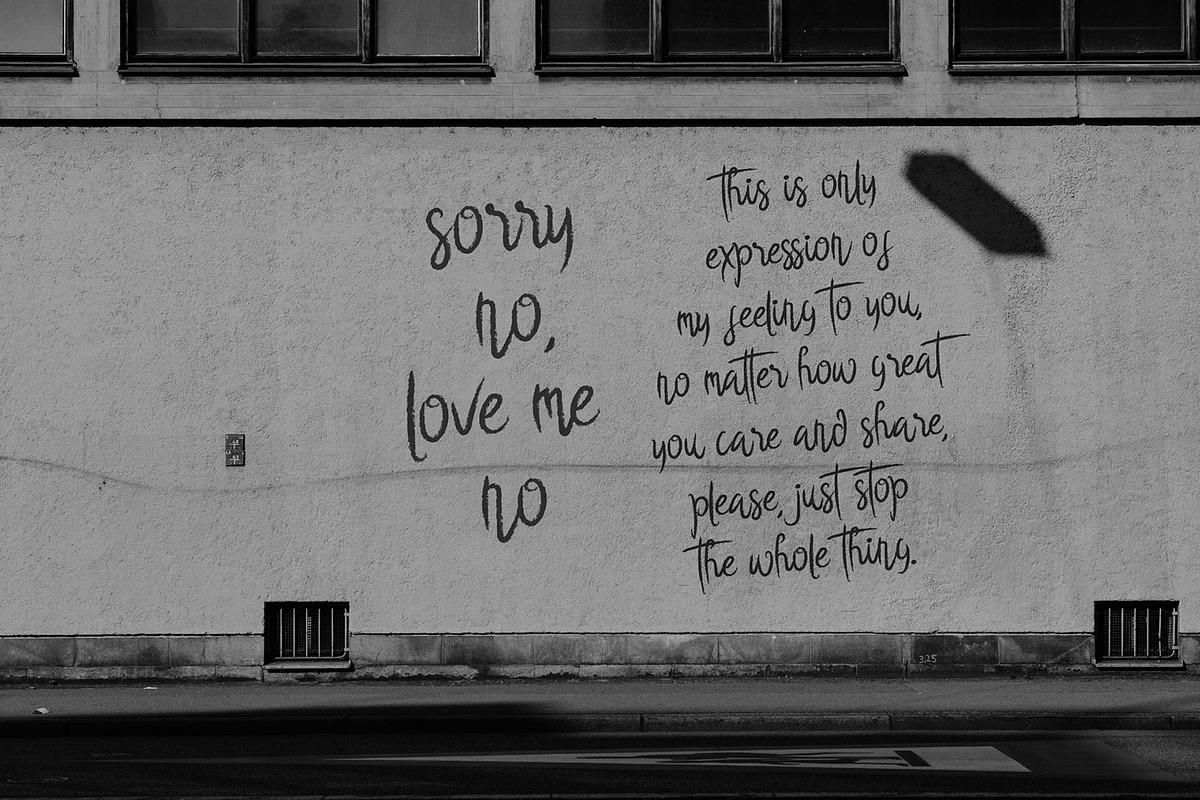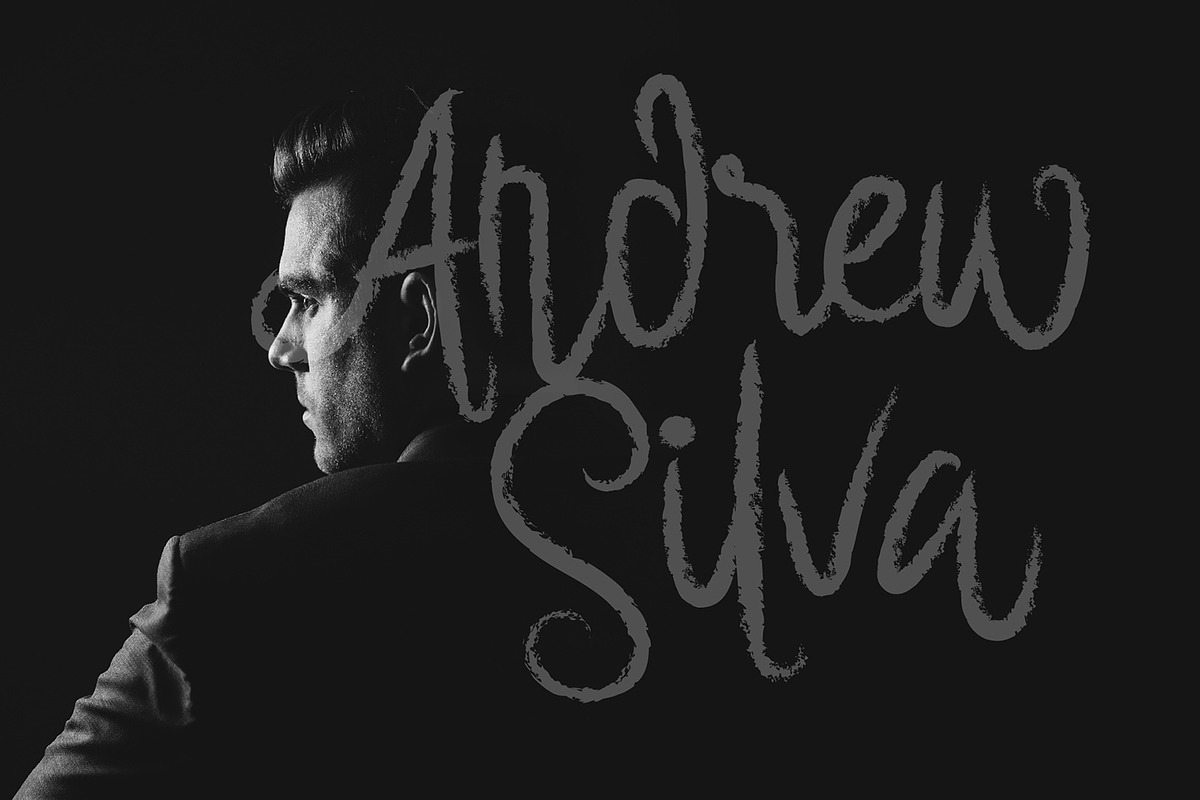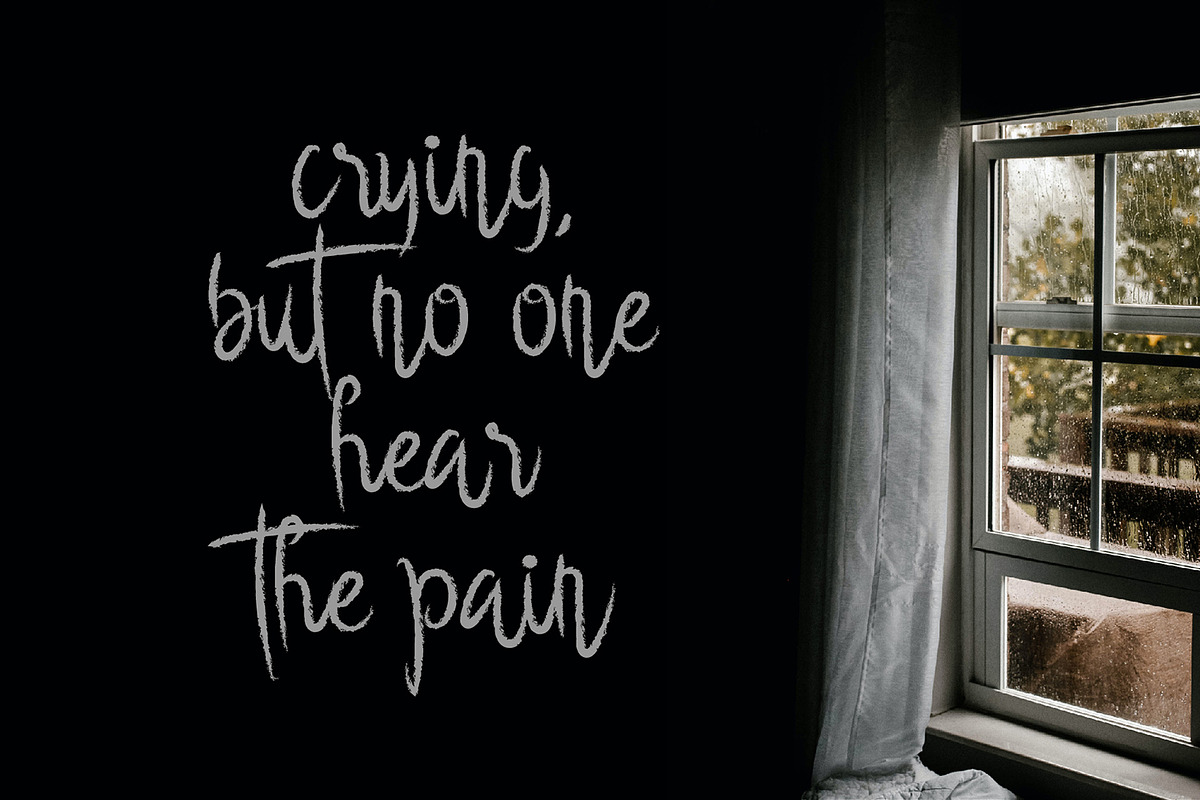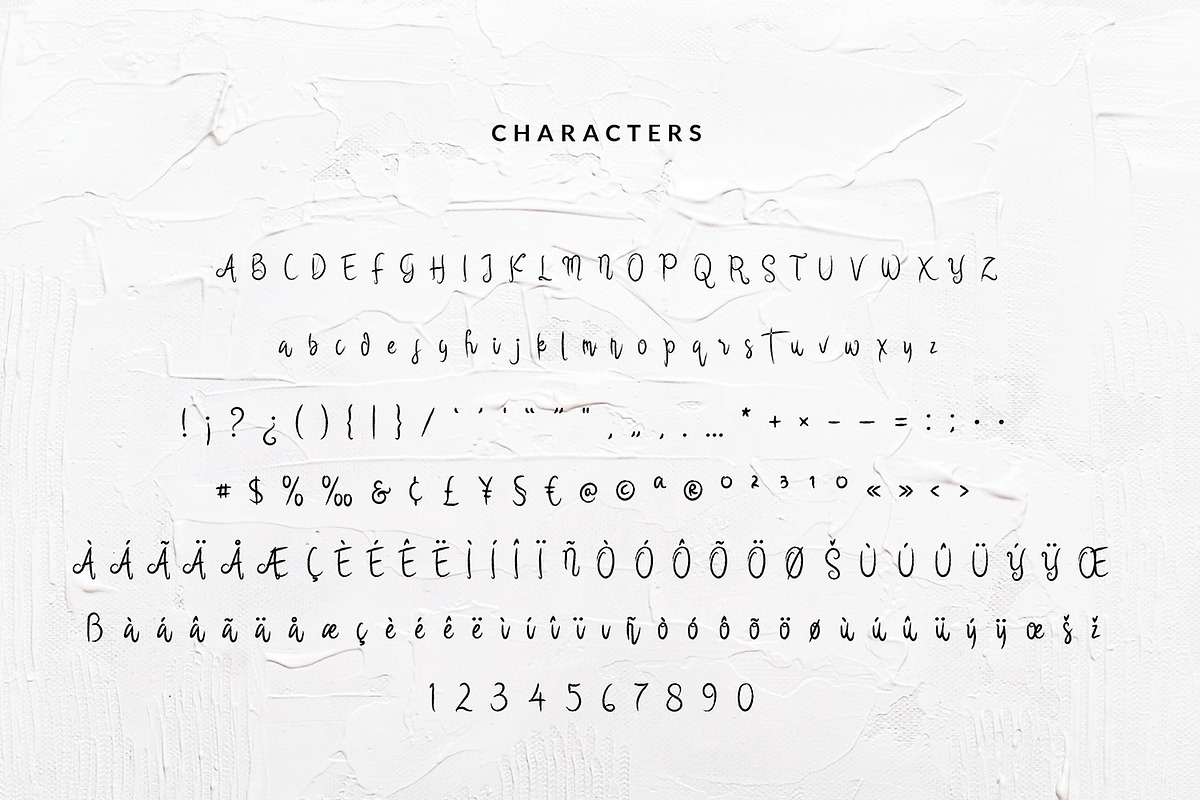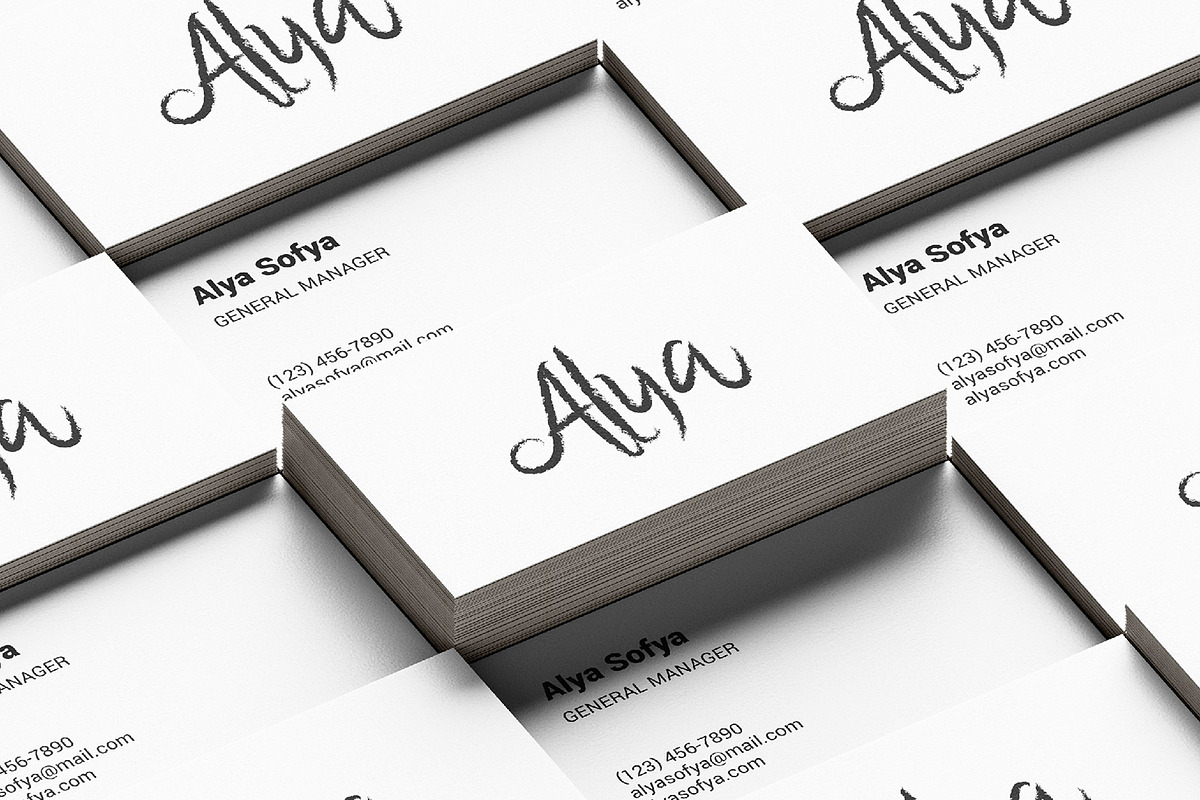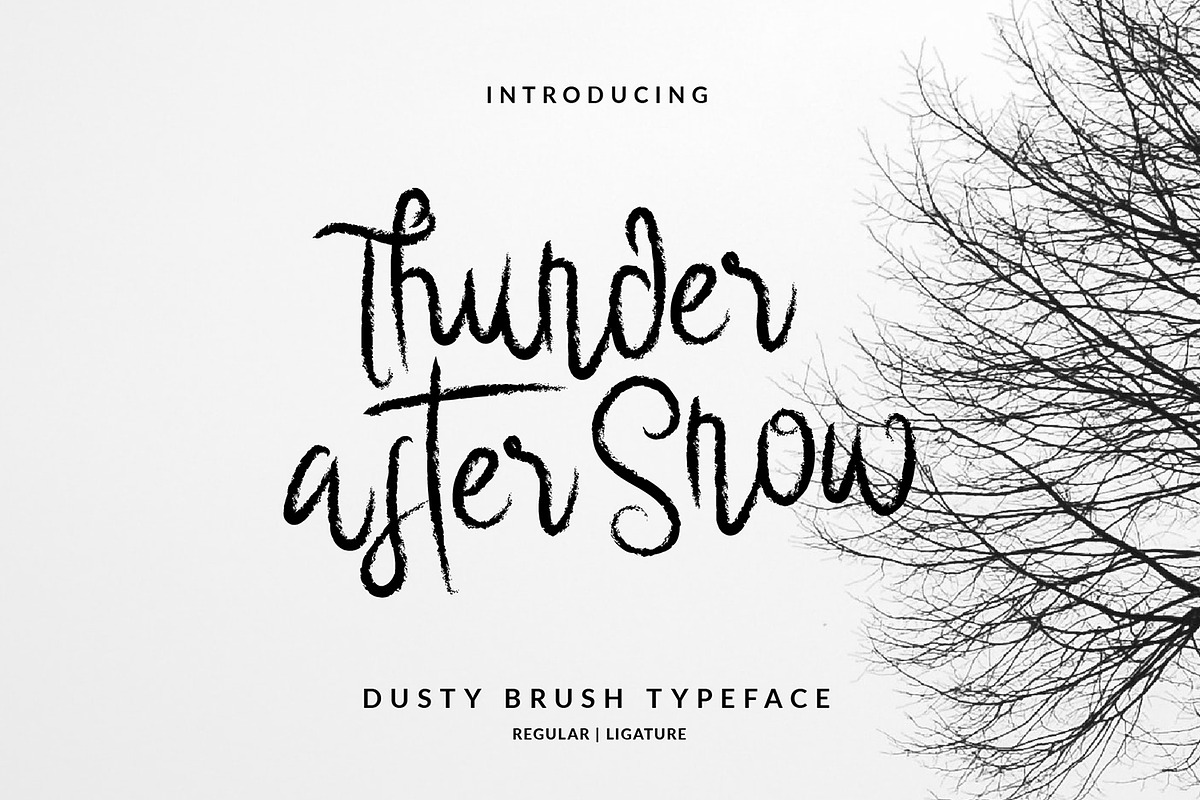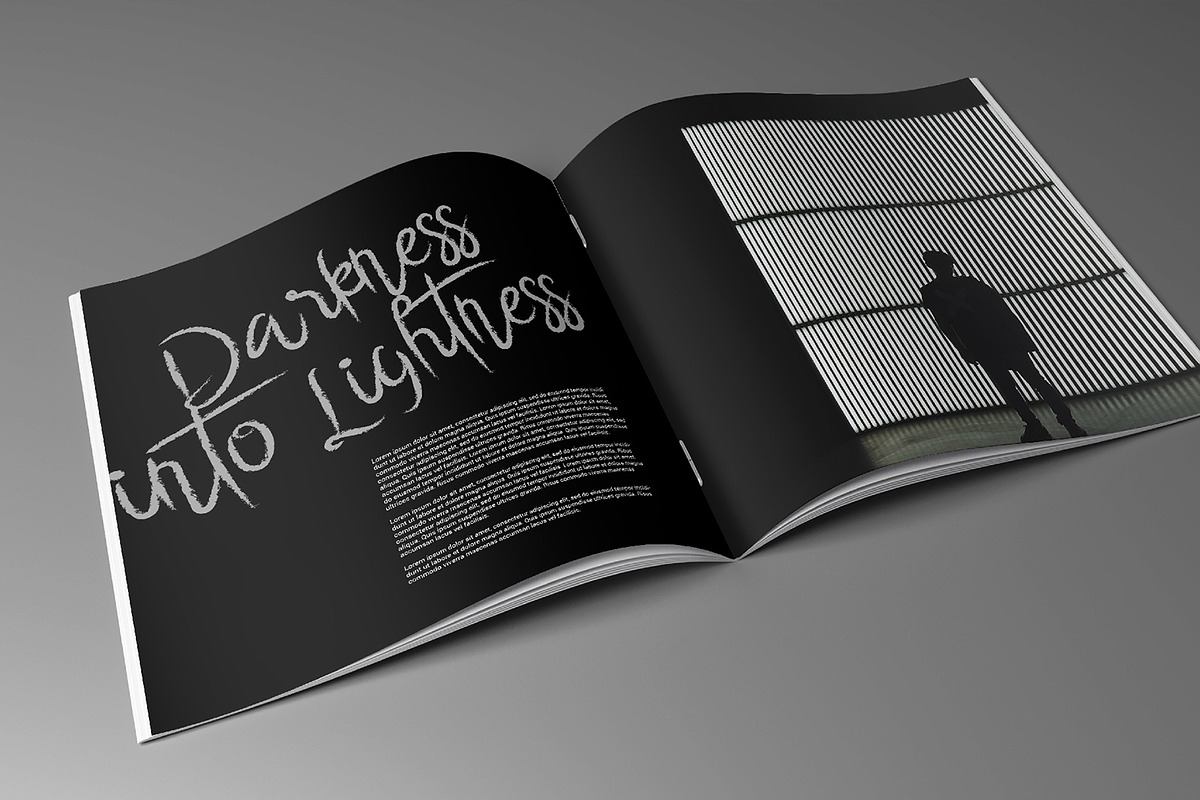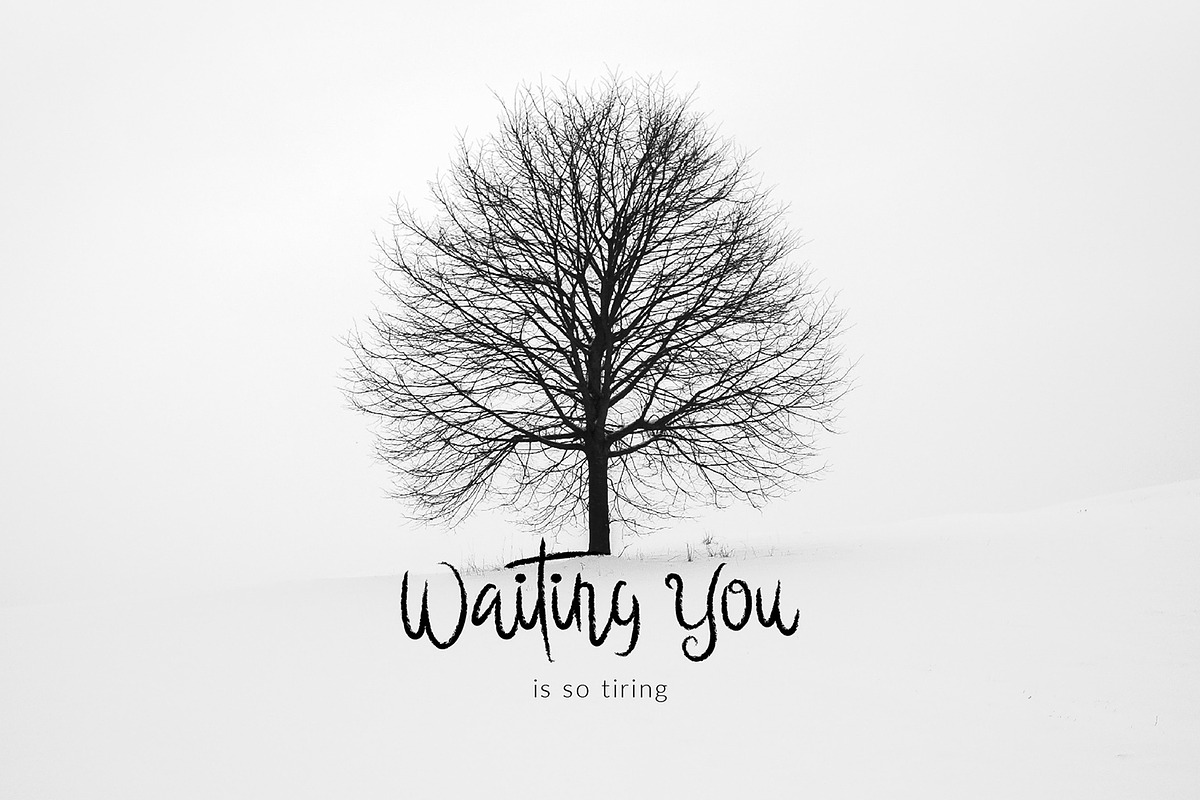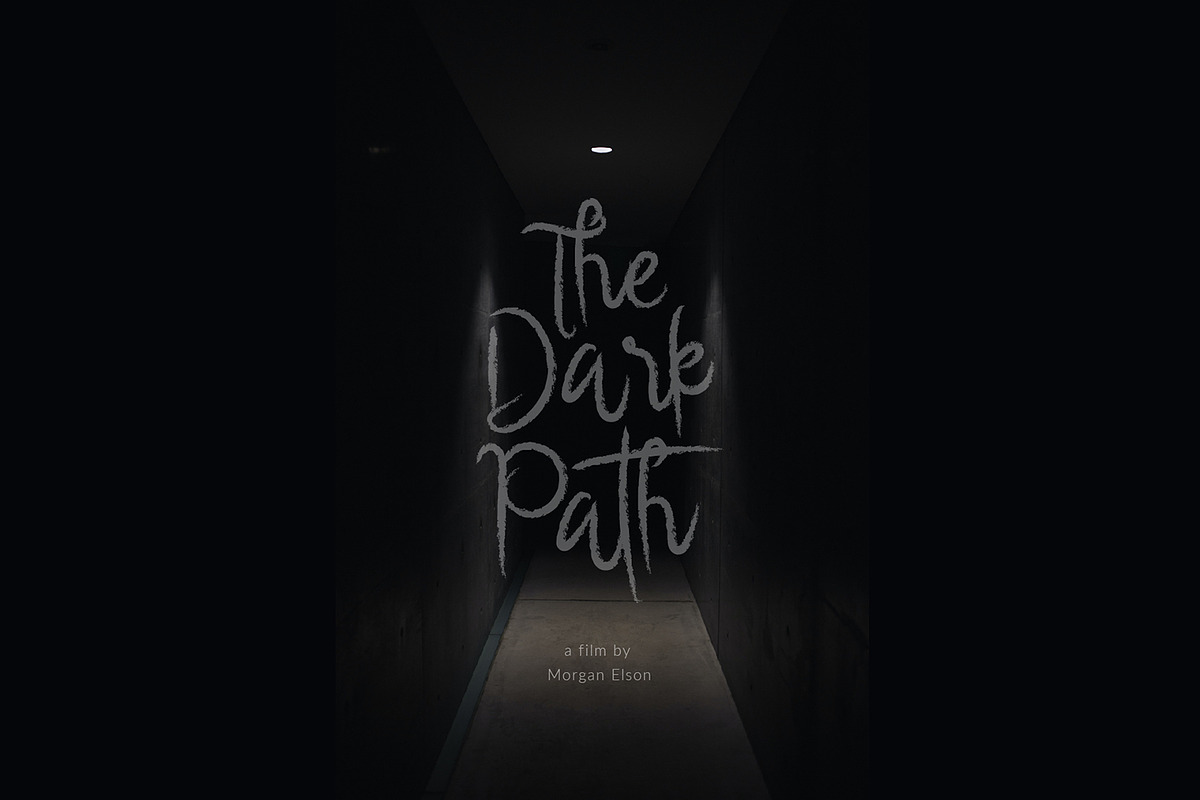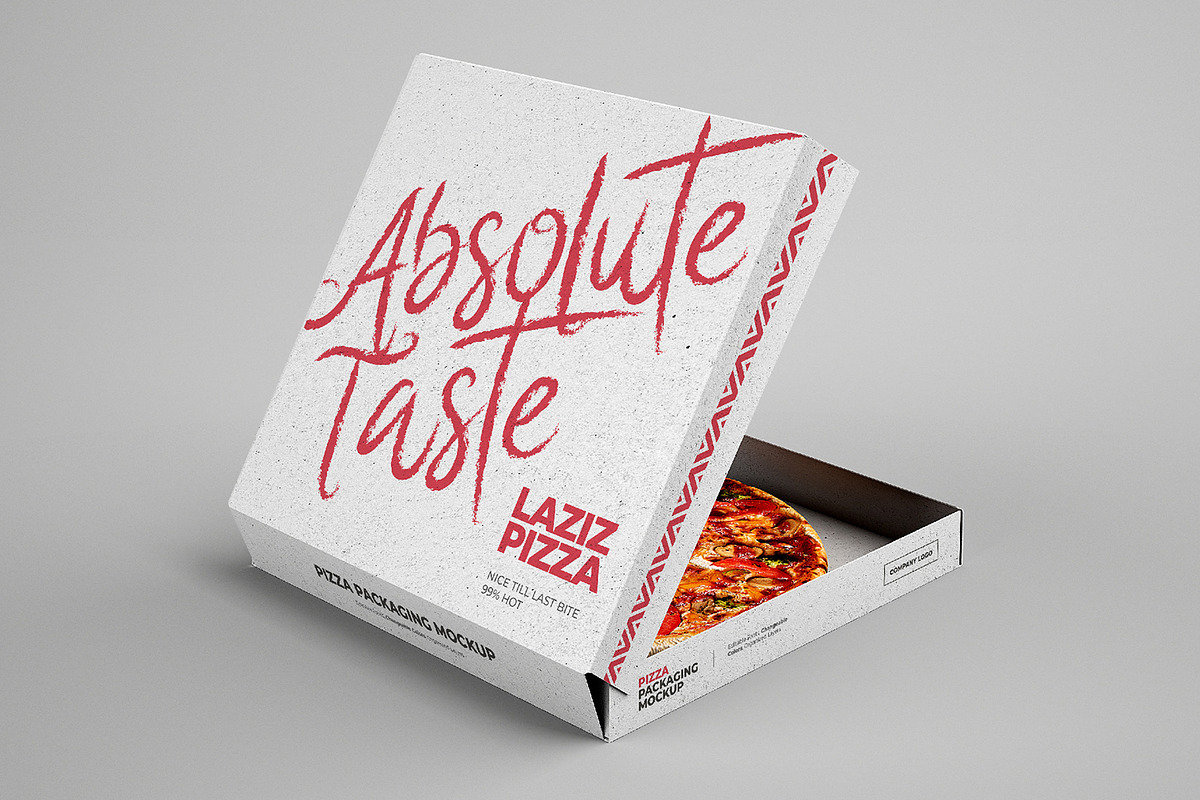
Thunder After Snow Brush Font
Thunder After Snow is a dusty brush typeface/font designed with carefully handcrafted. This perfectly made to be applied in logo or branding, stationery, books, packaging, fashion, magazines, t-shirt, greeting or wedding cards, vintage design, novels, labels and many advertising purposes.